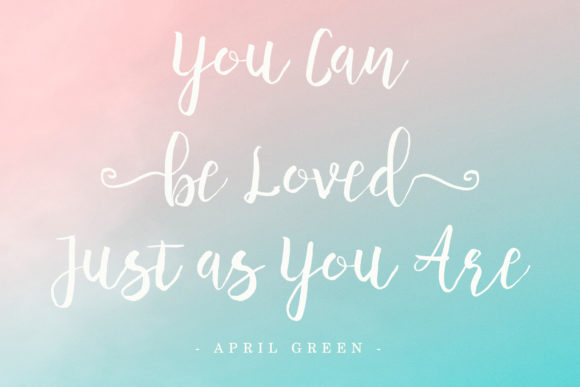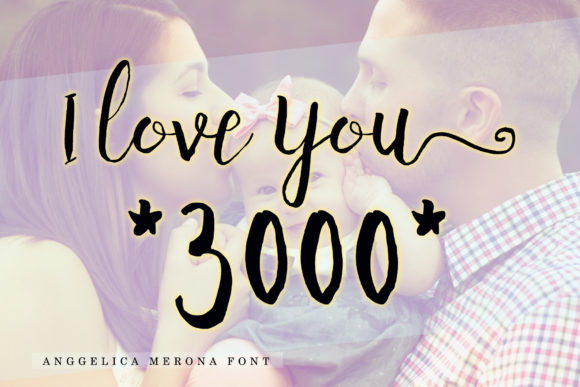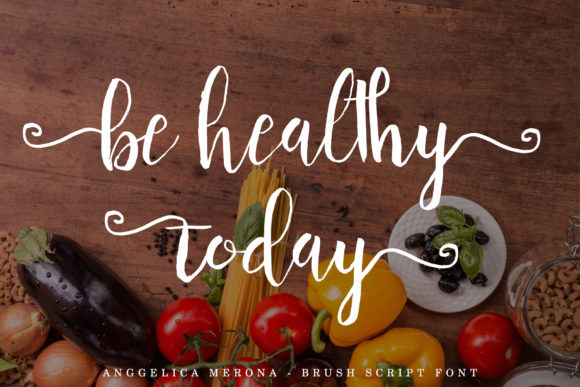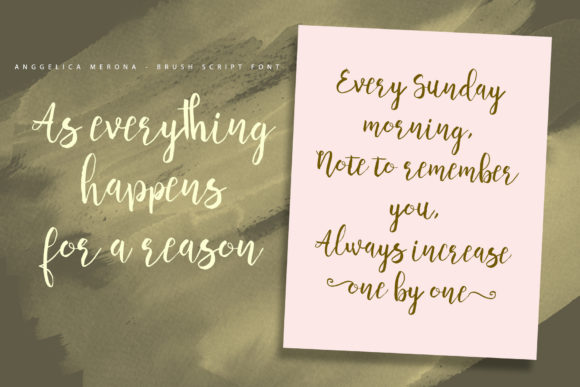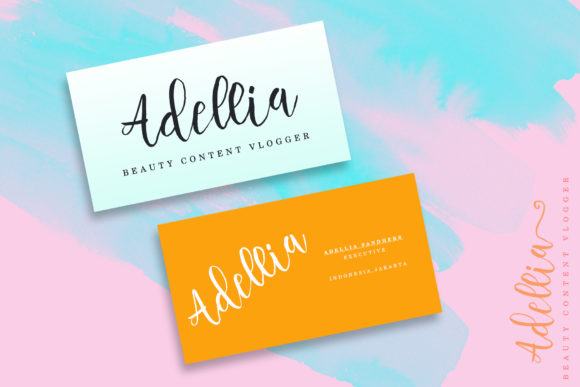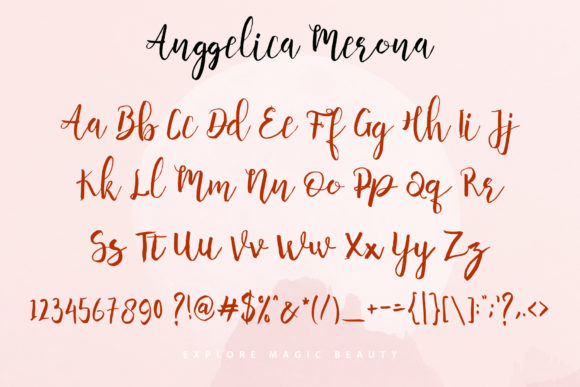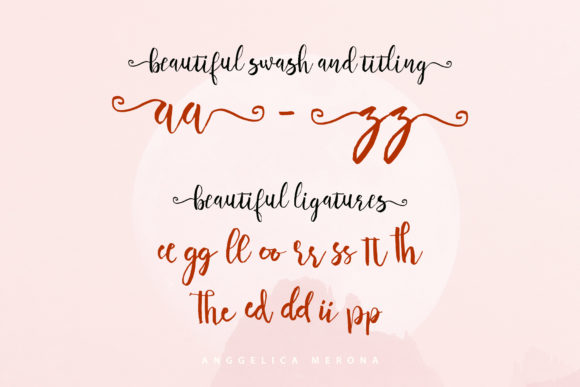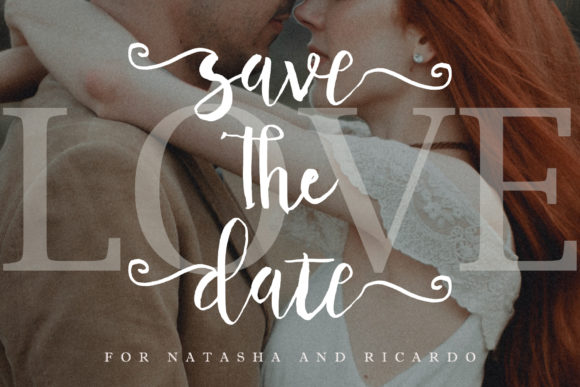
Anggelica Merona Font
About Anggelica Merona Font
Anggelica Merona is a heavenly and light handwritten font with amazing characters. It will put a romantic spin on any design idea.